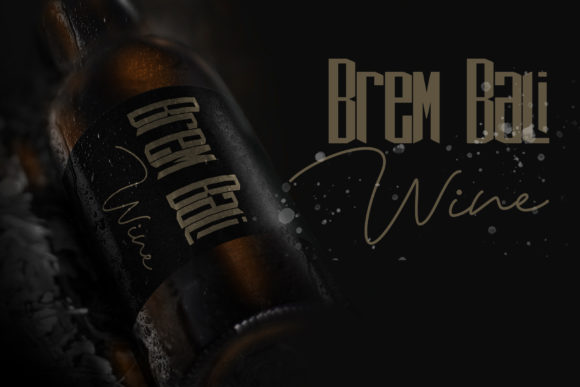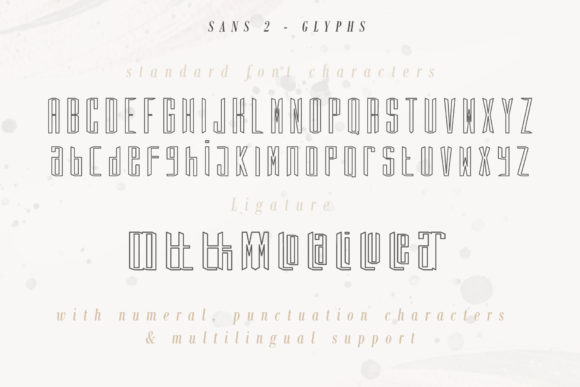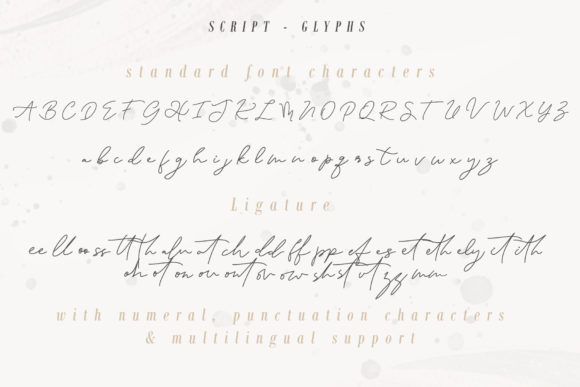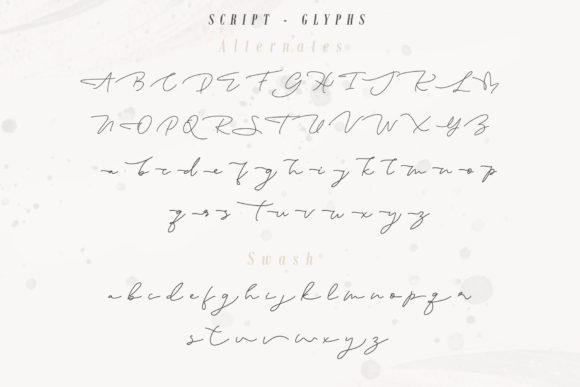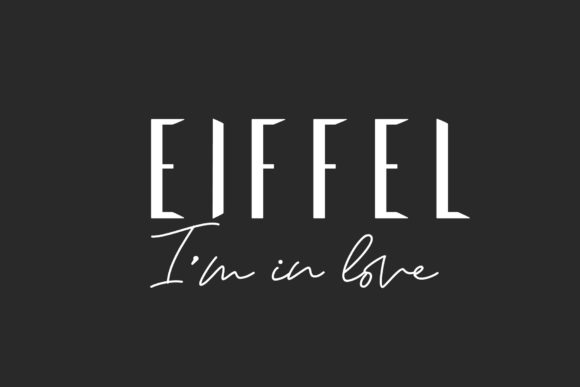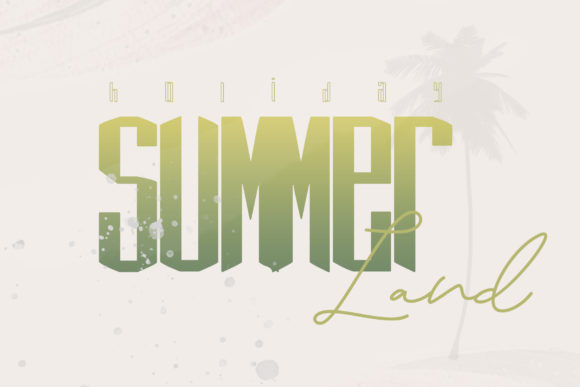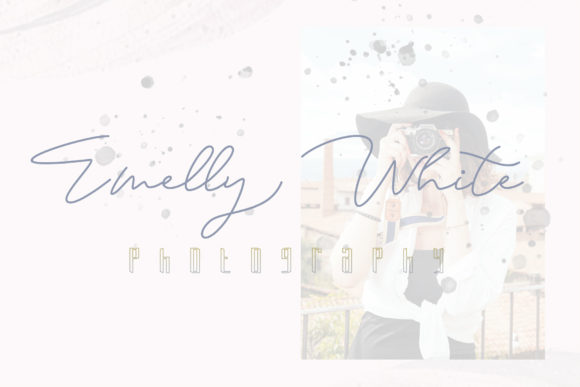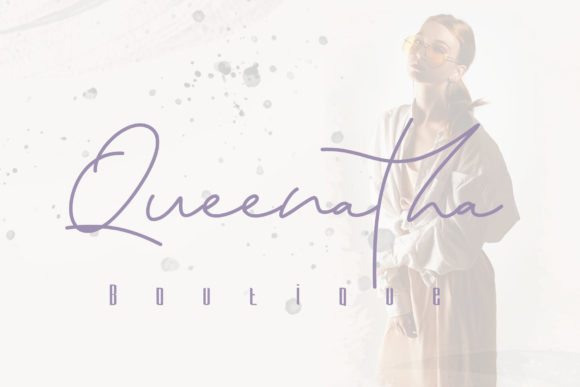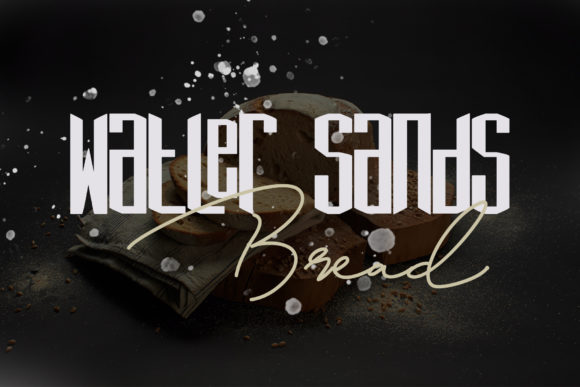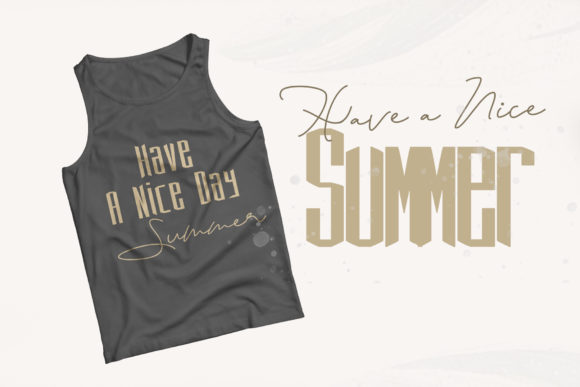
Eiffel in Love Duo Font
About Eiffel in Love Duo Font
Eiffel in love is a beautiful high fashion-themed font trio, consisting of two stunning sans fonts and one authentic script font. Get inspired by its sophisticated charm.